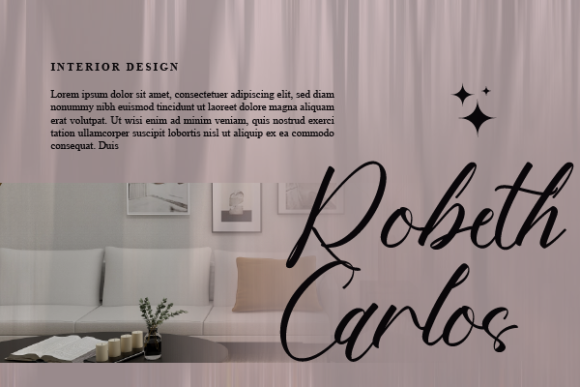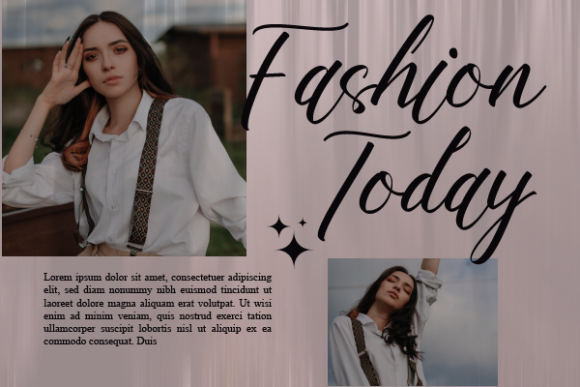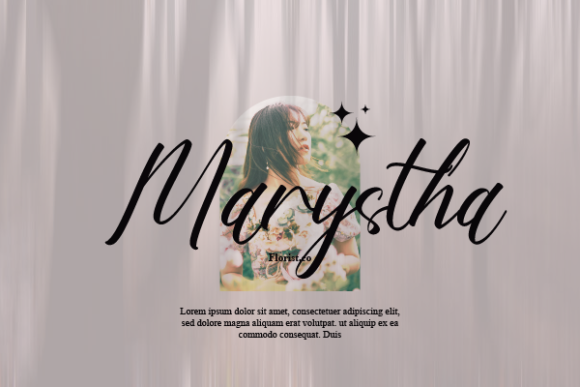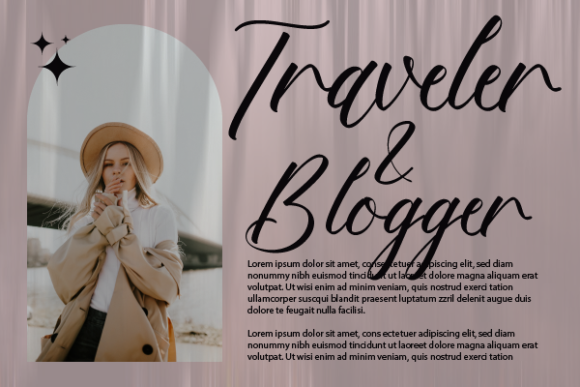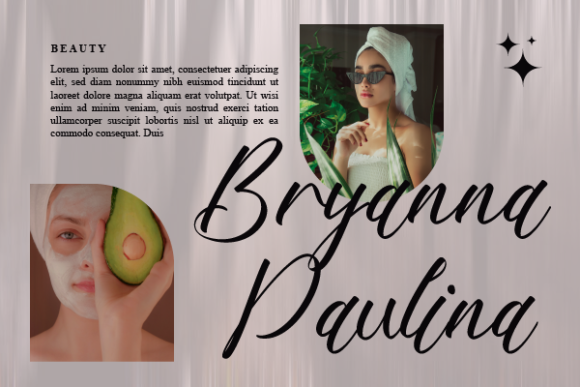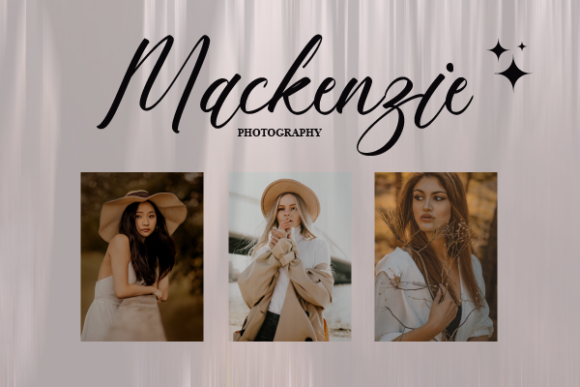
Discover the Elegance of Gabrielle Sutherland Font: Elevate Your Designs with this Delicate Script Font
In the world of typography, fonts play a crucial role in conveying the tone and personality of a brand. For designers and crafters seeking a font that exudes elegance and sophistication, Gabrielle Sutherland Font is an excellent choice. This delicate and fashionable script font is perfect for a wide range of branding projects, including logos, t-shirt printing, creative products, and more. In this article, we’ll explore the features and benefits of Gabrielle Sutherland Font and how it can elevate your designs.
What is Gabrielle Sutherland Font?
Gabrielle Sutherland Font is a beautiful, hand-crafted script font that boasts a unique and stylish aesthetic. Its delicate strokes and elegant letterforms make it an ideal choice for designers looking to add a touch of sophistication to their projects. The font’s flowing lines and curves create a sense of movement and fluidity, making it perfect for designs that require a sense of dynamism.
Key Features of Gabrielle Sutherland Font
• Delicate and Elegant: Gabrielle Sutherland Font features delicate strokes and elegant letterforms that add a touch of sophistication to any design.
• Versatile: This font is perfect for a wide range of branding projects, including logos, t-shirt printing, creative products, and more.
• Hand-crafted: Gabrielle Sutherland Font is a hand-crafted font, ensuring a unique and personal touch.
• Script Style: The font’s script style makes it perfect for designs that require a sense of elegance and sophistication.
Benefits of Using Gabrielle Sutherland Font
Gabrielle Sutherland Font offers several benefits to designers and crafters. Some of the key advantages of using this font include:
• Unique and Memorable: The font’s unique and stylish aesthetic makes it perfect for creating memorable and impactful designs.
• Easy to Read: Despite its delicate nature, Gabrielle Sutherland Font is easy to read, making it perfect for designs that require a clear and concise message.
• Highly Versatile: This font can be used in a variety of contexts, from logos and branding materials to t-shirt printing and creative products.
• Time-Saving: With Gabrielle Sutherland Font, designers can save time and effort, as the font can be easily integrated into a wide range of designs.
How to Use Gabrielle Sutherland Font in Your Designs
Gabrielle Sutherland Font is easy to use and can be integrated into a wide range of designs. Here are some tips on how to use this font in your projects:
• Logos and Branding: Use Gabrielle Sutherland Font to create elegant and sophisticated logos and branding materials.
• T-Shirt Printing: This font is perfect for t-shirt printing, adding a touch of elegance and sophistication to your designs.
• Creative Products: Use Gabrielle Sutherland Font to create unique and stylish creative products, such as stationery, stickers, and more.
• Digital Designs: This font can also be used in digital designs, such as social media graphics, blog posts, and more.
Gabrielle Sutherland Font is a delicate and fashionable script font that is perfect for designers and crafters seeking to add a touch of elegance and sophistication to their projects. With its unique and stylish aesthetic, versatility, and ease of use, this font is an excellent choice for a wide range of branding projects. Whether you’re creating logos, t-shirt printing designs, creative products, or digital designs, Gabrielle Sutherland Font is sure to elevate your designs and make them stand out.